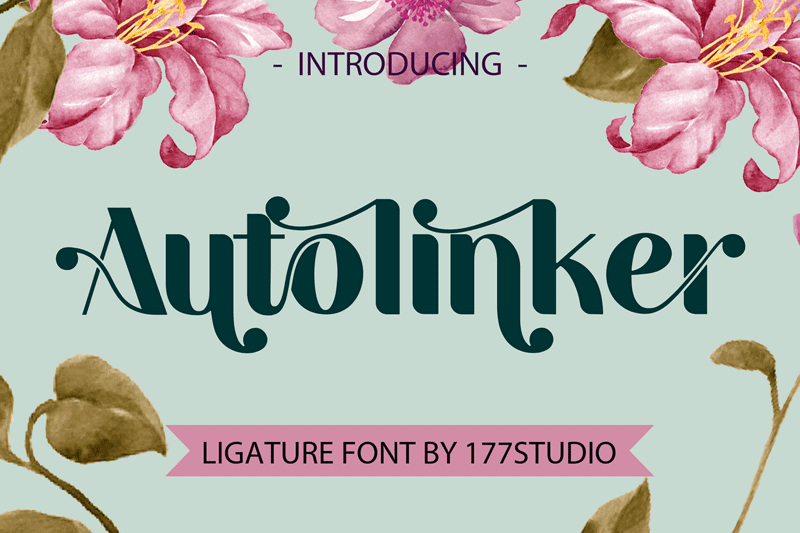
Font name: | Autolinker |
Autolinker - Fancy Ligature Font is a well-balanced contemporary font with beautiful ligatures. It is a display font with moderate contrast that perfect for branding projects, logo, wedding designs, social media posts, advertisements, product packaging, product designs, label, photography, watermark, invitation, stationery, and any projects, it makes with a high level of legibility. To make it look more unique, here we prepared some ligatures: ab ae ah am an ai aj ar ao ap at cb ch cm cn ci cj cp co cr db de dh dm dn di dj do dp dr eb eh em en ei ej eo ep er oo tb th tm tn ti tj to tp tr ub uh um un ui uj uo up ur fl fi ff fj gi gj ri rj Include Fancy Style on Every Uppercase and Some Lowercase You can buy full license from our store for more our fonts: https://177studio.com/product/autolinker-fancy-ligature-font/ https://gumroad.com/l/MjddK Also check out: https://befonts.com/author/177studio https://www.dafont.com/kenz.d8820 if you have any problem, let we know by email: admin@177studio.com |